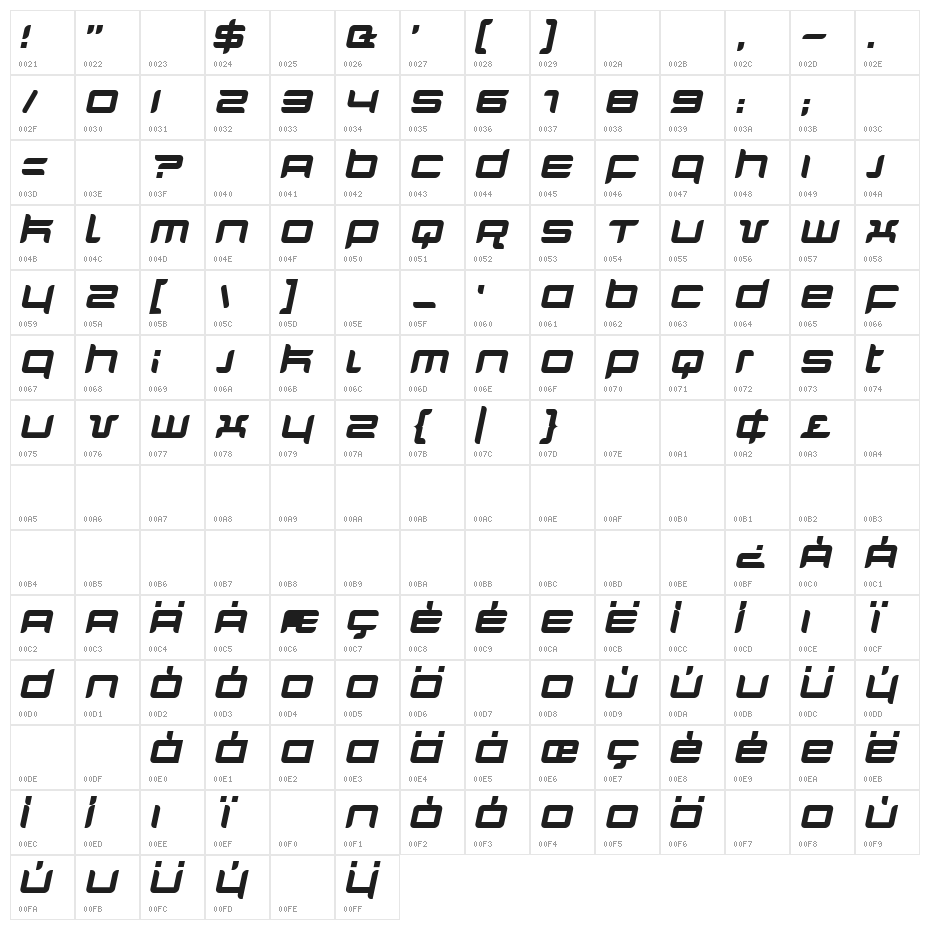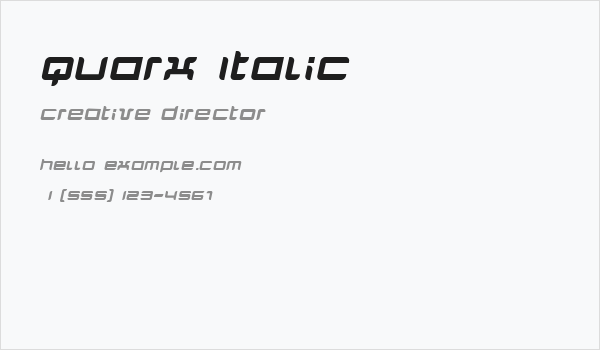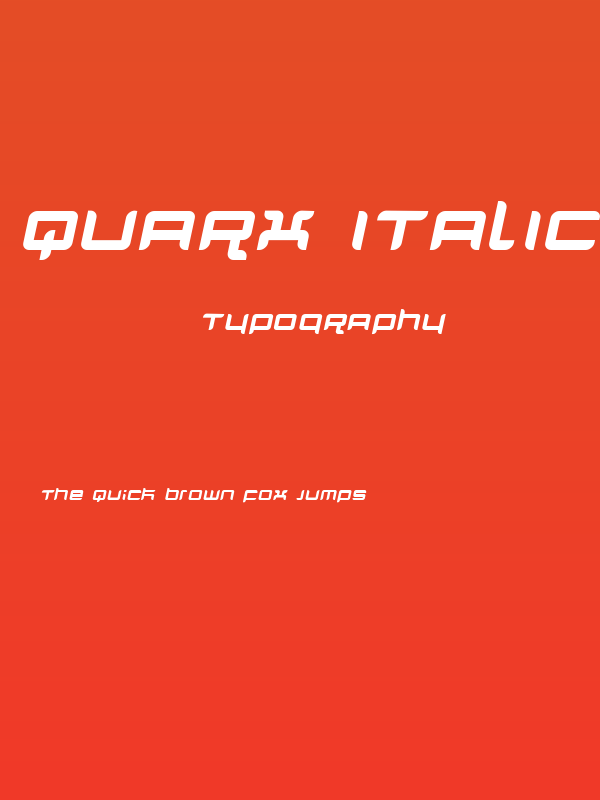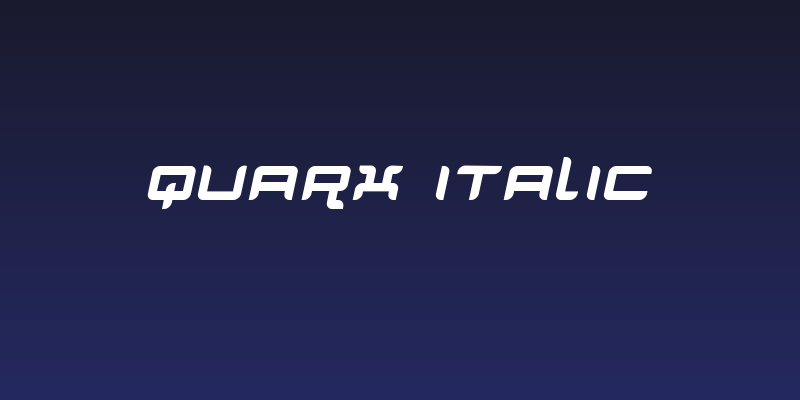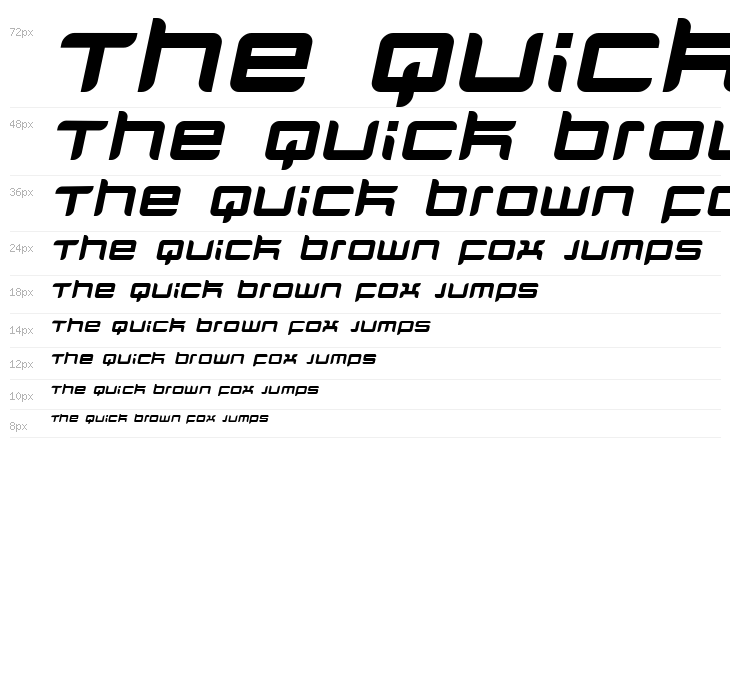
Quarx Italic Font
Quarx Italic Description
This font features a sleek, modern design with a futuristic flair. The characters are slightly italicized, giving them a dynamic and forward-leaning appearance. The strokes are consistent in thickness, providing a uniform look across all characters. The rounded edges and smooth curves contribute to a streamlined aesthetic, making it suitable for tech-oriented projects. The font maintains a balanced spacing between characters, ensuring readability while preserving its unique style. The numerals and special characters are designed to match the overall theme, with a focus on clarity and modernity.
| Use Case | Logos, Headlines, Digital Interfaces |
| Proposed Projects | Ideal for technology branding, futuristic designs, digital interfaces, and modern advertising. |